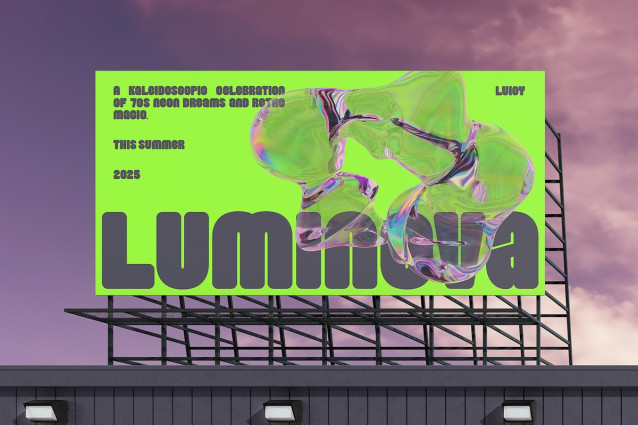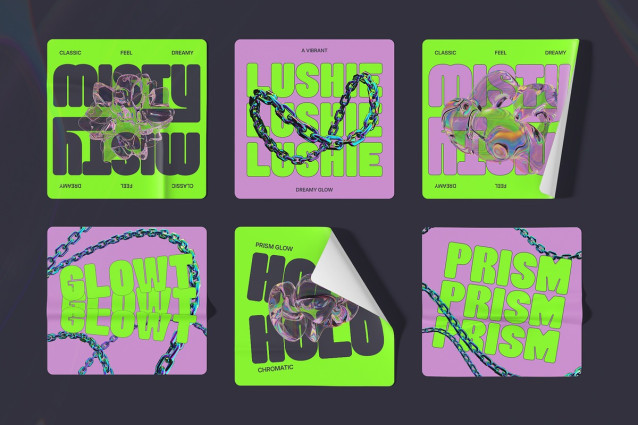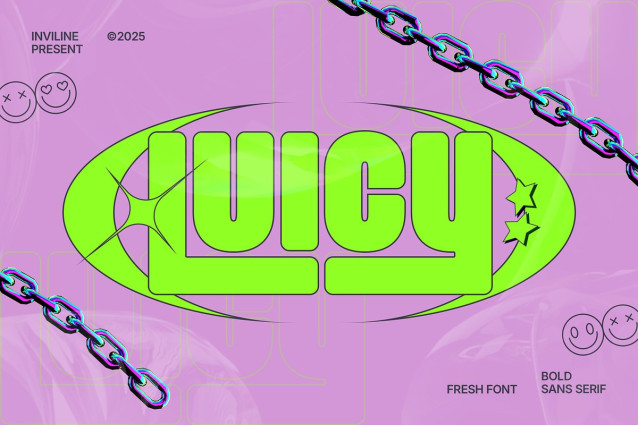
Luicy Font
Luicy Font is a bold and juicy sans serif font with retro-futuristic energy. Inspired by Y2K, pop-art, and street-style typography, it’s the perfect font to make your designs scream loud and fun. Whether for headlines or branding, Luicy is designed to stand out.